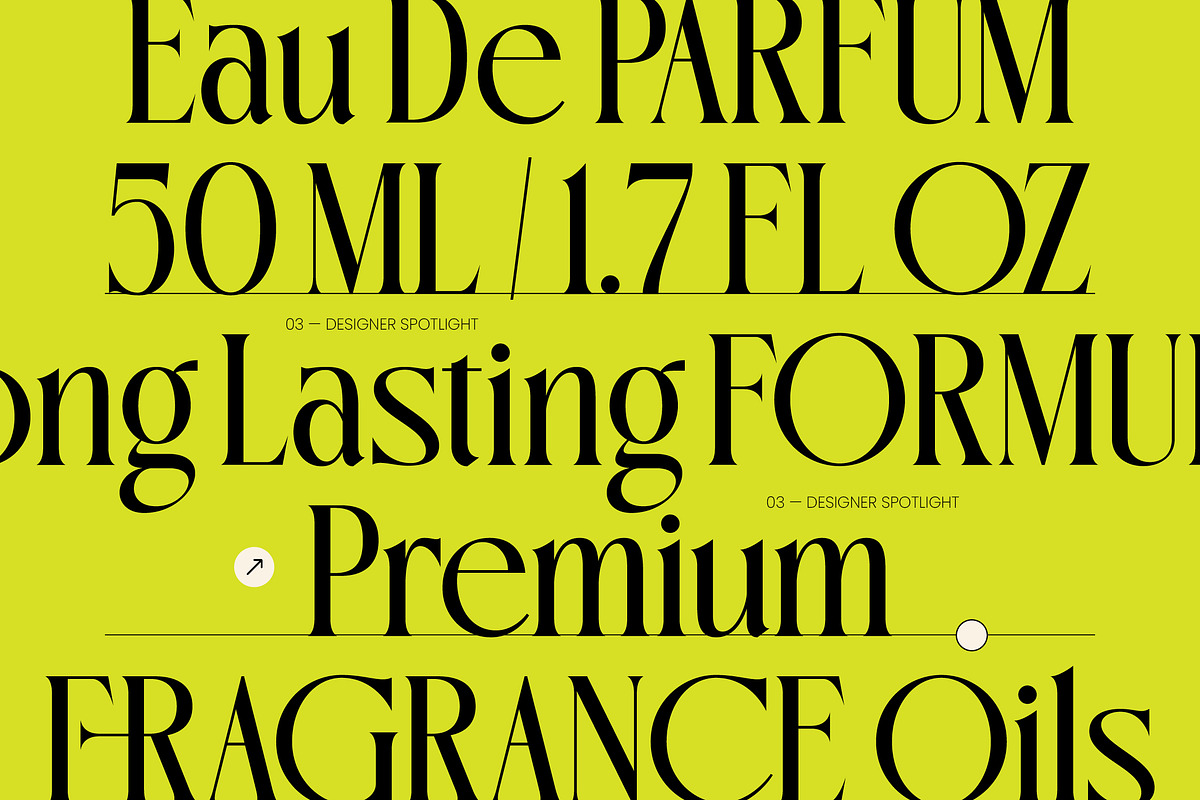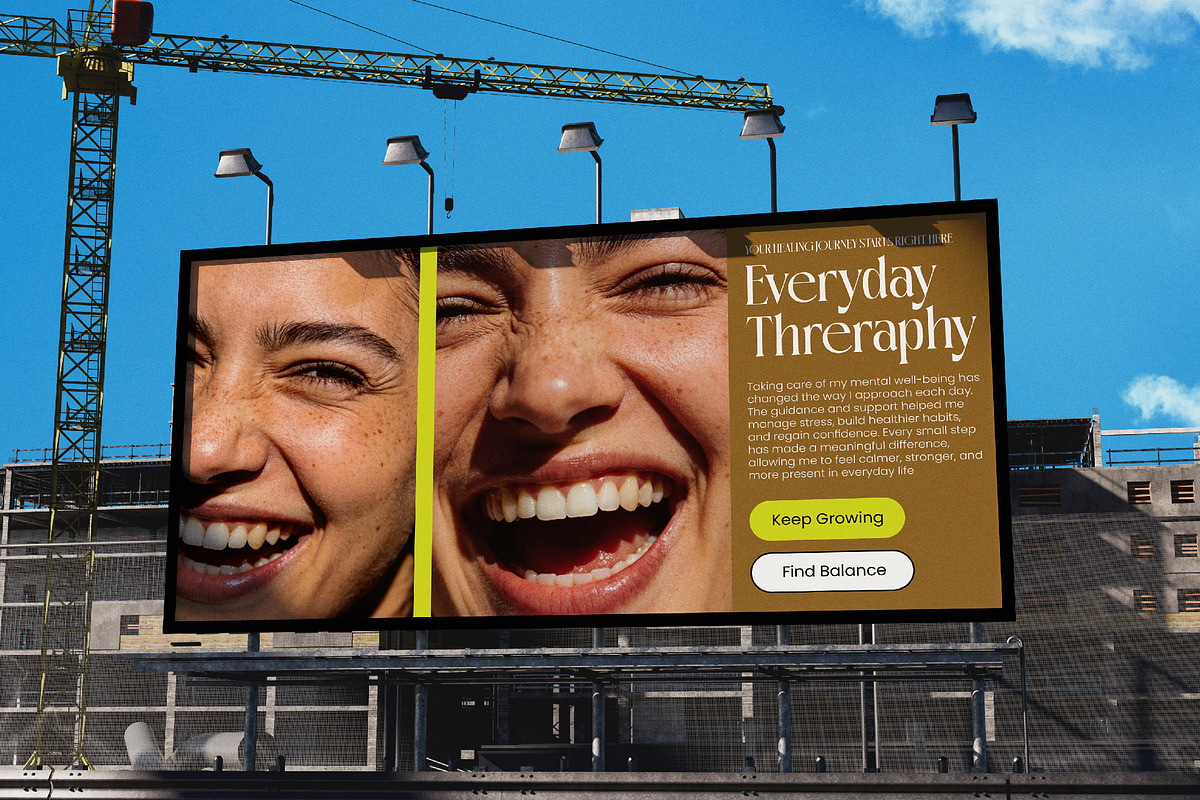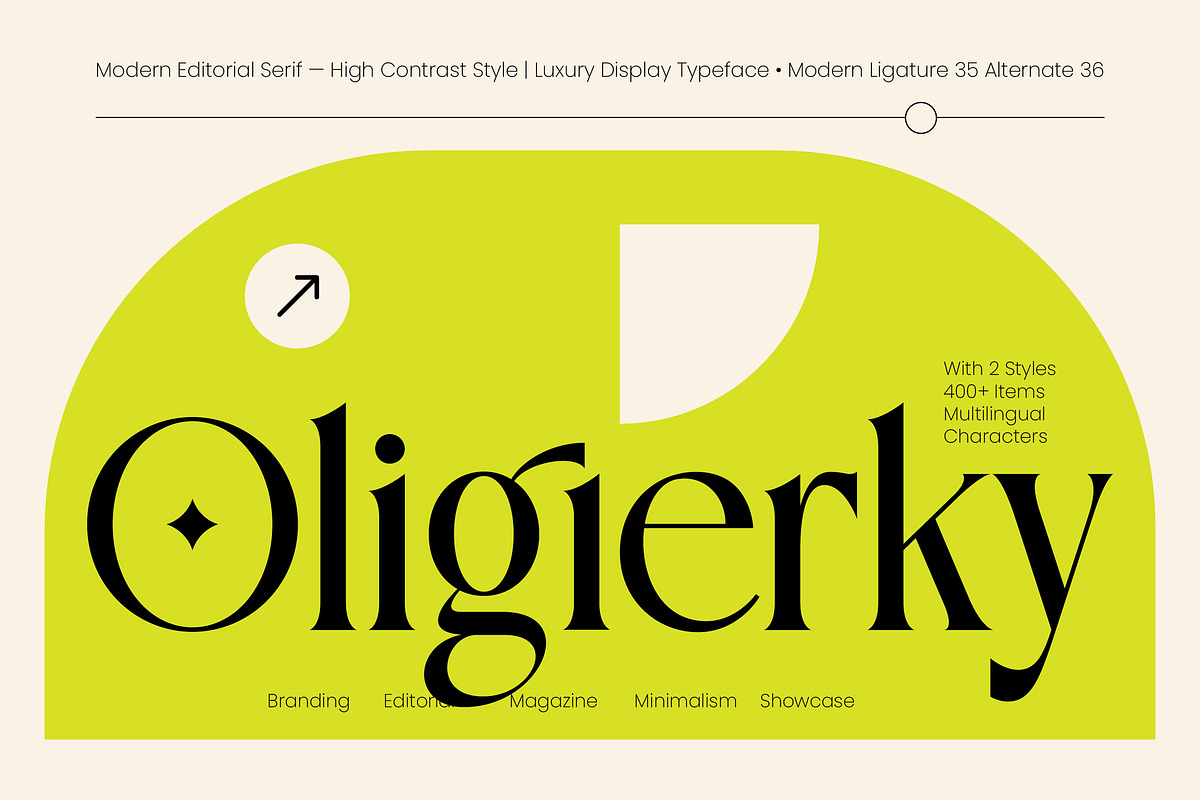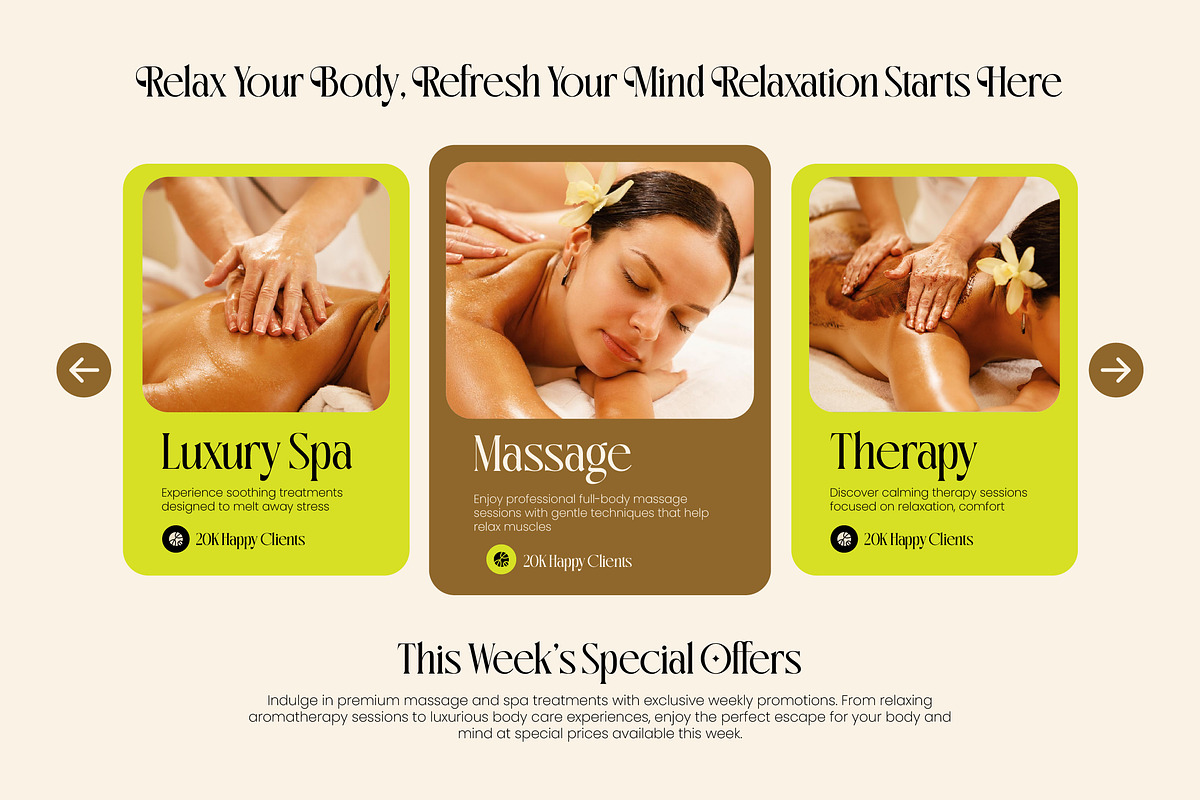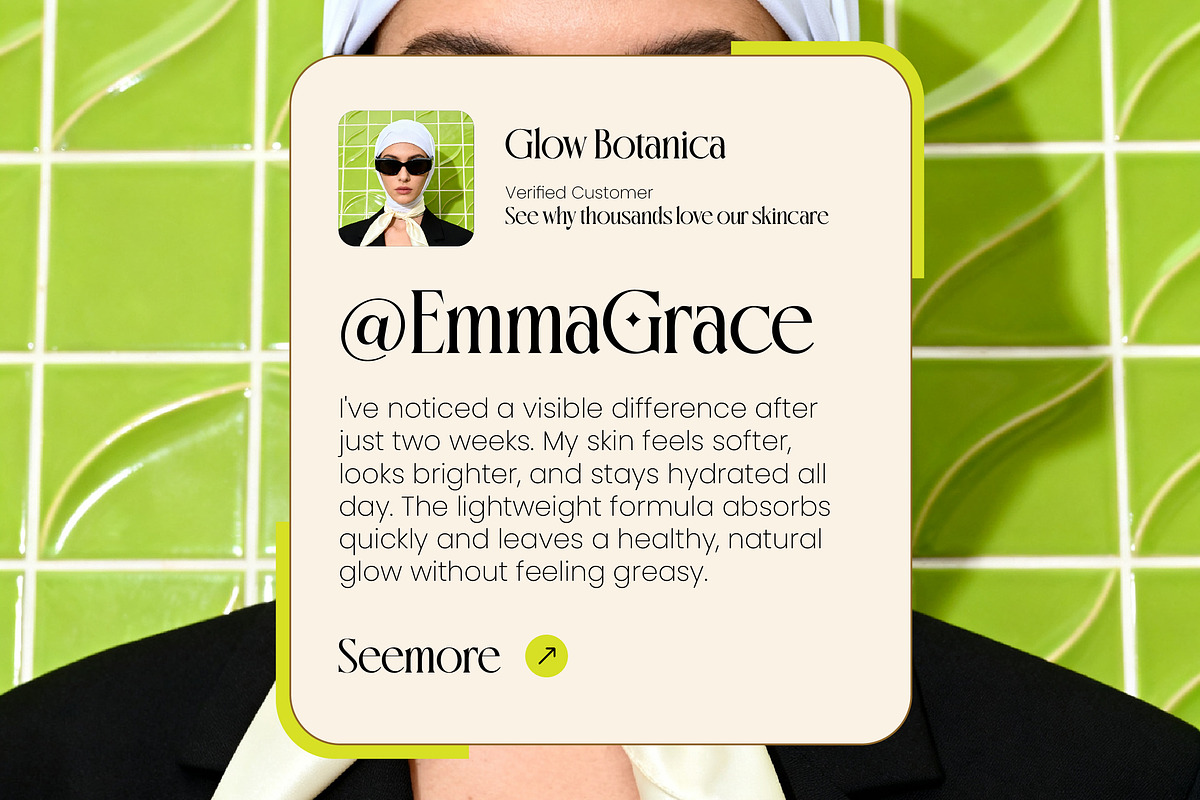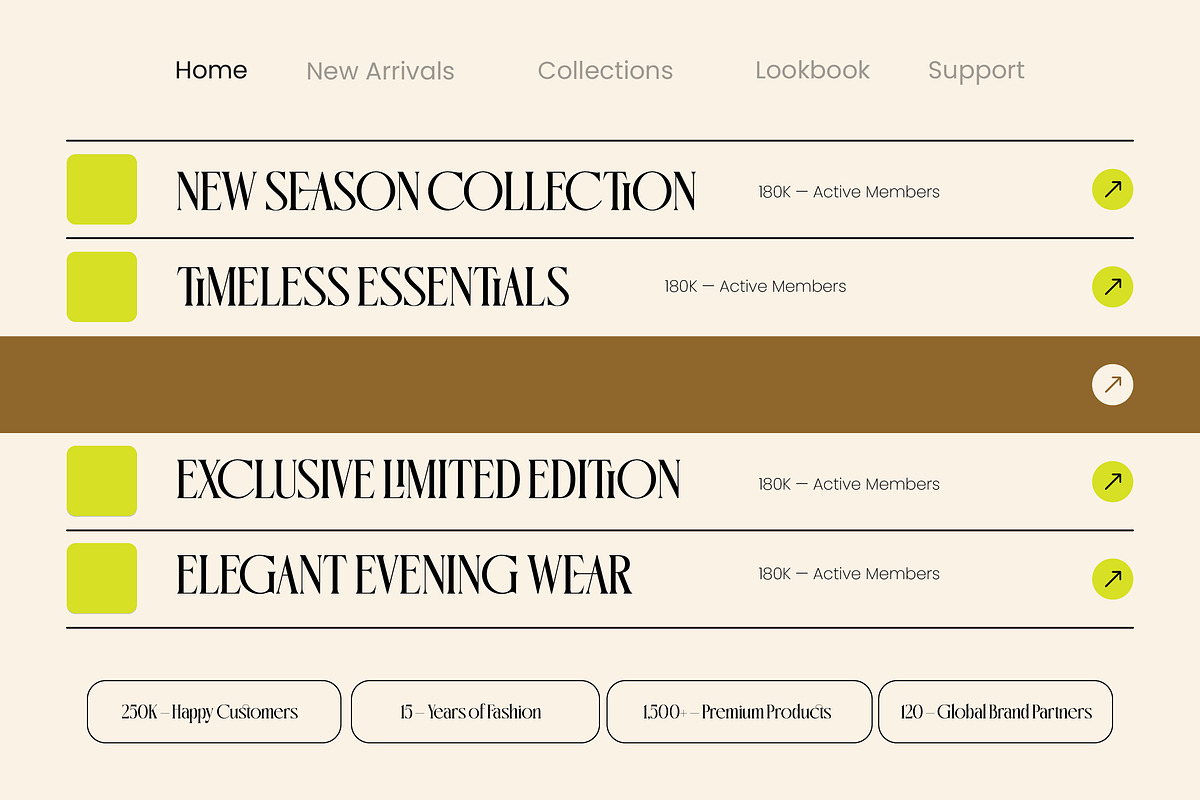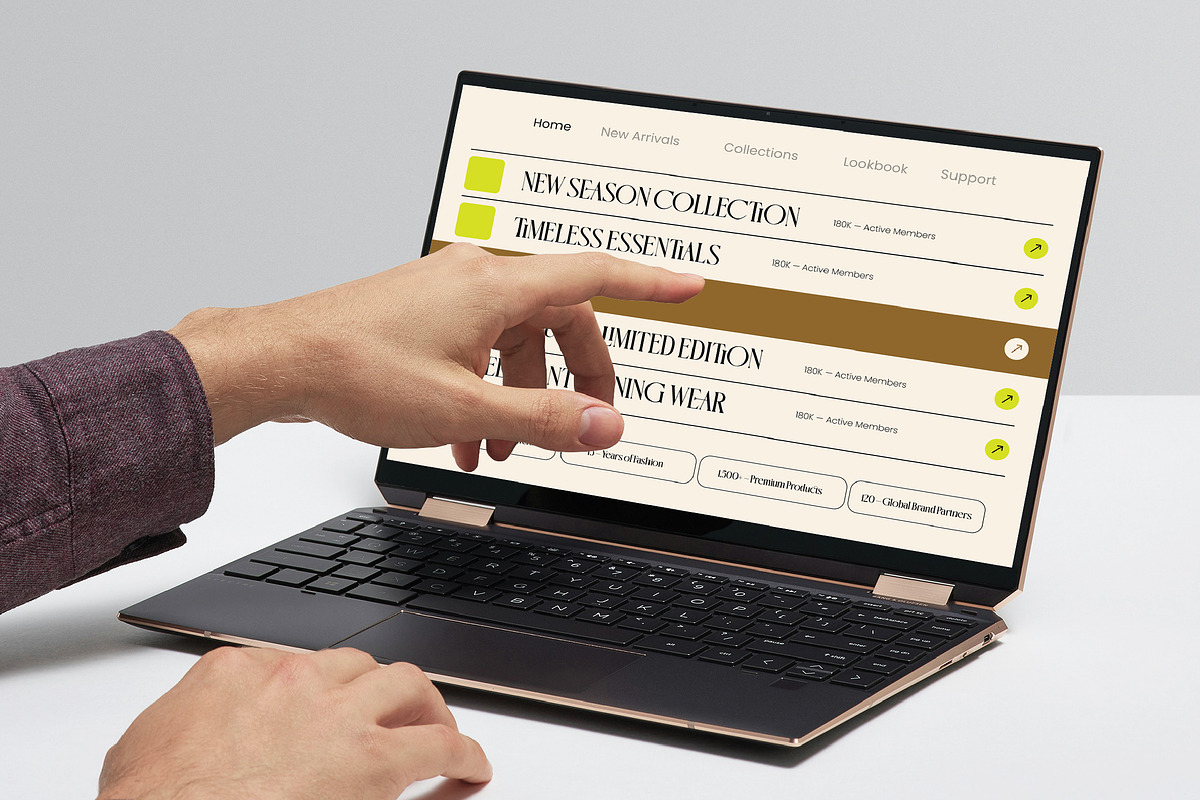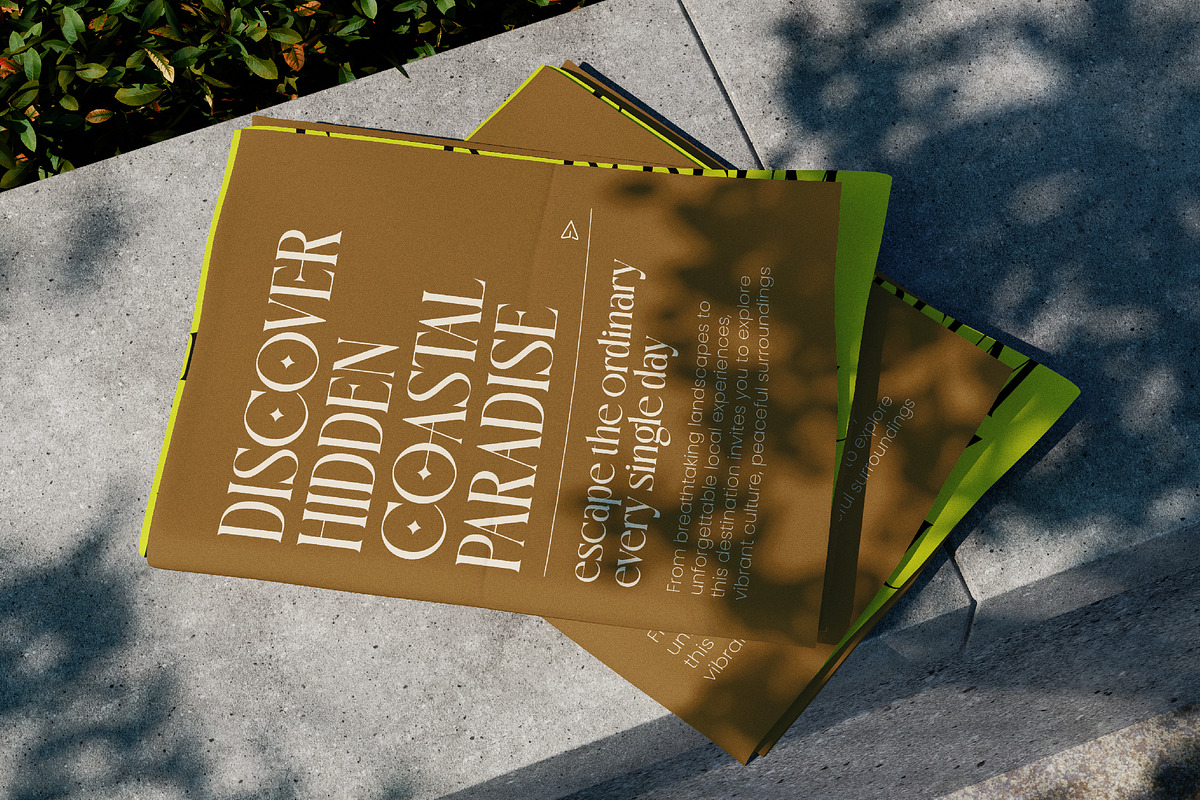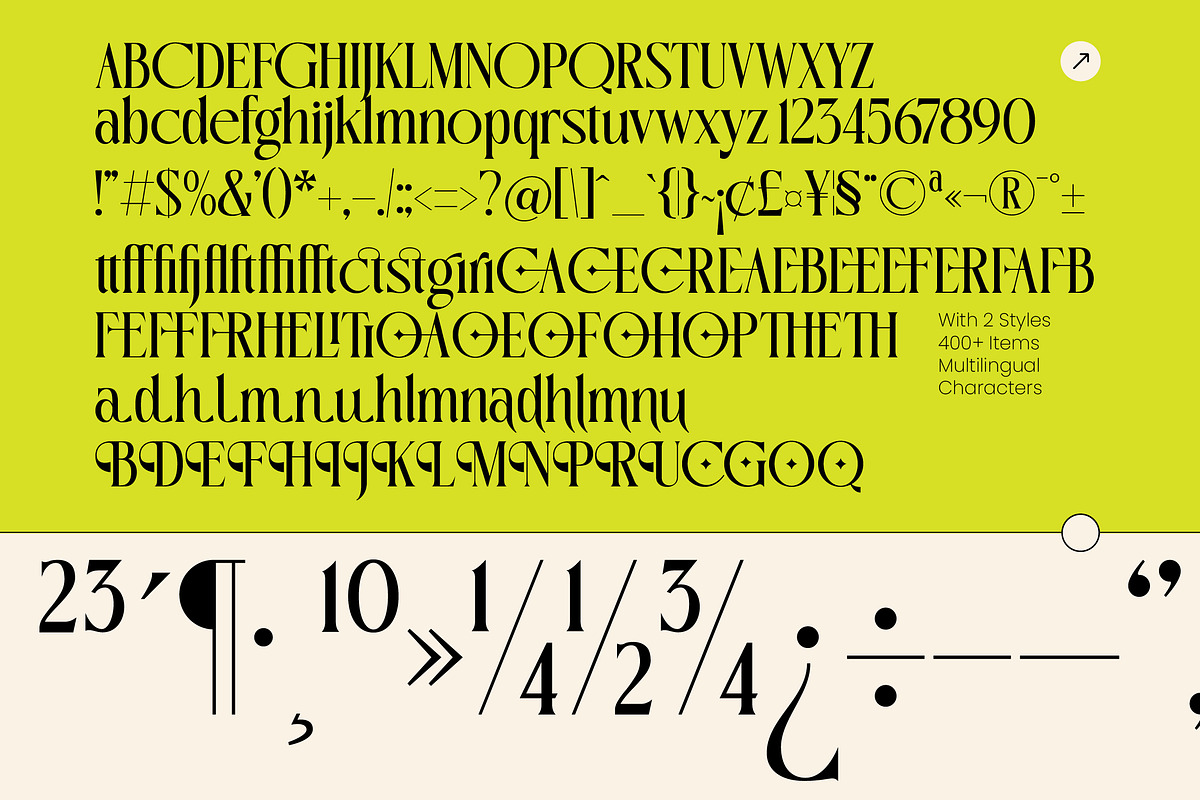
Oligierky Modern Editorial Serif
**Oligierky - Modern Editorial Serif , **Elevate your design aesthetic with a typeface that embodies sophisticated modernism and contemporary elegance. Oligierky - Modern Editorial Serif is a masterfully crafted high-contrast serif that balances sharp, refined edges with graceful, flowing curves. This luxury display typeface is designed to command attention while maintaining a sense of timeless poise, making it an essential asset for any premium creative toolkit.
Unleash unparalleled creative freedom through an extensive collection of over 400 meticulously designed characters. Featuring 35 modern ligatures and 36 unique alternates, Oligierky - Modern Editorial Serif offers limitless possibilities for creating bespoke typography that feels truly custom. The font’s architectural precision ensures that every headline and title resonates with a premium visual impact that is both bold and sophisticated.
Expand your brand’s reach across the globe with comprehensive linguistic capabilities that ensure consistent quality. With its extensive multilingual support, Oligierky - Modern Editorial Serif adapts seamlessly across global markets, making it incredibly versatile for international projects. This adaptability allows designers to maintain a cohesive brand identity regardless of the language, providing a reliable and professional typographic solution for world-class ventures.
Transform your vision into a prestigious reality by applying this typeface to high-end projects requiring a touch of class. Oligierky - Modern Editorial Serif is perfect for luxury branding, editorial design, high-end packaging, and magazine layouts. Whether utilized in minimalist showcases or as bold headlines, this font serves as the definitive choice for lifestyle and fashion brands looking to establish a distinctive market presence.